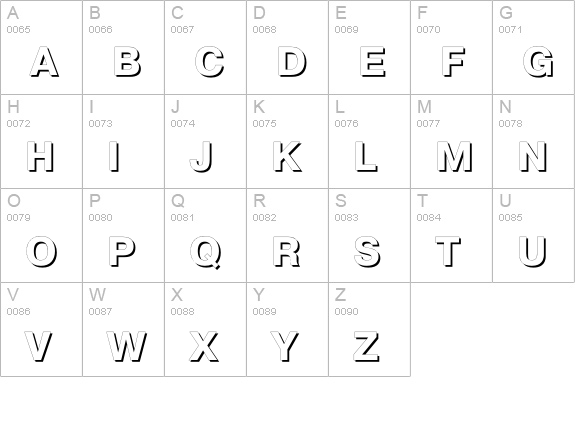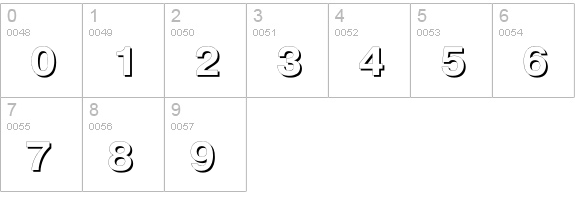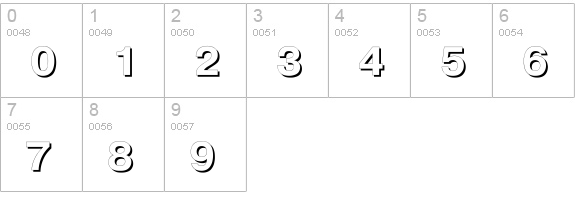
Pragmatica Shadow Book is a comfortable, highly readable variant in the Pragmatica typeface family \xE2\x80\x94 well suited to long-form body text, articles, and editorial content.
Pragmatica Shadow Book font exudes elegance and sophistication with its sleek and modern design. The unique shadow effect adds depth and dimension to each character, making this font perfect for adding a touch of flair to any project. The clean lines and sharp edges give Pragmatica Shadow Book a contemporary appeal that is both striking and versatile. And the best part? Pragmatica Shadow Book font is available for free download at FontsMarket.com. Whether you're working on a professional design project or simply looking to enhance your personal creations, this font is a must-have addition to your collection. Don't miss out on the opportunity to elevate your designs with the captivating beauty of Pragmatica Shadow Book font - download it for free today!